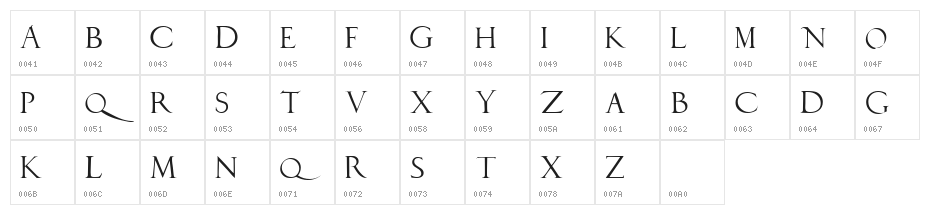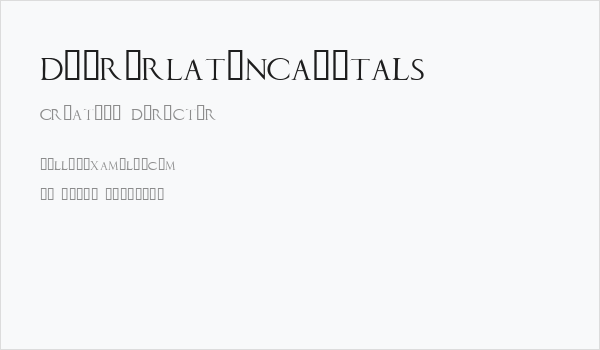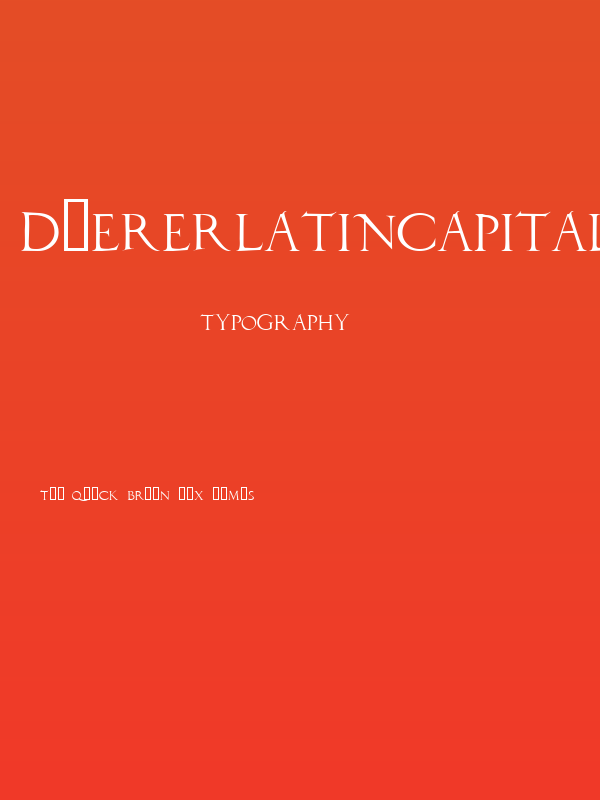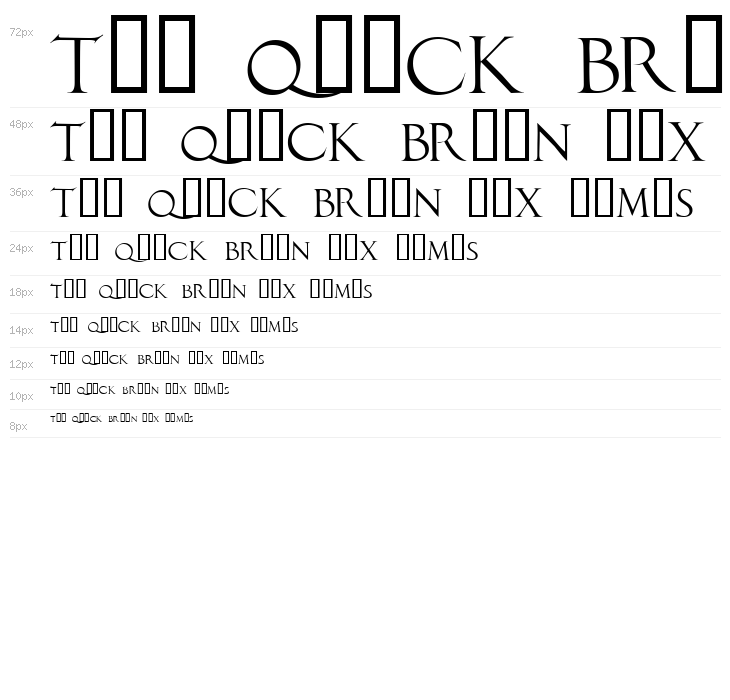
DuererLatinCapitals Font
This font features a classic serif style with elegant and refined letterforms. The uppercase letters exhibit a traditional Roman influence, characterized by sharp serifs and a balanced proportion. The lowercase letters maintain a consistent style, offering a harmonious flow between characters. The numerals are designed to complement the overall aesthetic, with a clear and readable structure. Special characters are included, maintaining the same stylistic integrity. This font is suitable for projects that require a touch of sophistication and timeless appeal.
Overall StyleClassic
Proposed ProjectsIdeal for use in formal invitations, book covers, historical documents, and branding that requires a classic touch.